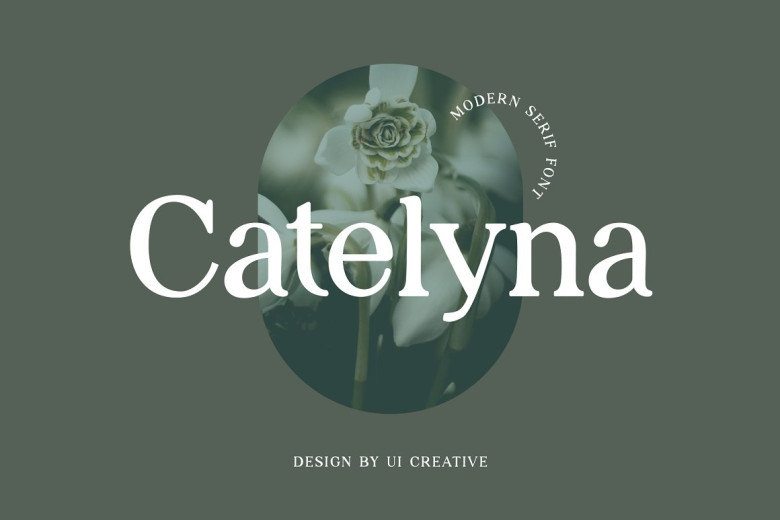
Catelyna Font
Catelyna is a serif font, you can look beautiful, classy, elegant, and modern. This font is perfectly used in many projects such as signature, wedding, logo, book or magazine covers, scripture figures or slogans, clothing websites, brands packaging design.
Catelyna Serif Font